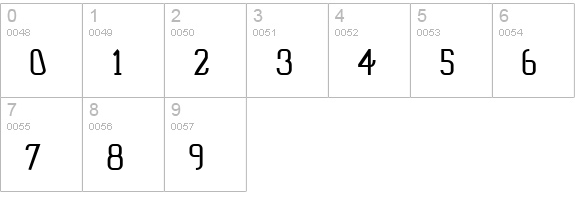
Dipper MF Demi Bold Font Details
Dipper MF Demi Bold is a sub-bold, structured variant in the Dipper typeface family \xE2\x80\x94 well suited to sub-headlines and emphasised passages.
Dipper MF Demi Bold is a modern and versatile font that exudes strength and sophistication. Its bold yet elegant design makes it perfect for a wide range of design projects, from branding to packaging to headlines. The clean lines and distinct character of this font make it stand out and grab attention. What sets Dipper MF Demi Bold apart is that it is not only visually striking, but also freely available to download at FontsMarket.com. This means you can easily access this high-quality font without any cost, making it a valuable addition to your font collection. Whether you're a designer looking for a powerful typeface for your next project or a creative individual seeking to elevate your work, Dipper MF Demi Bold is a fantastic choice that combines style, versatility, and accessibility.